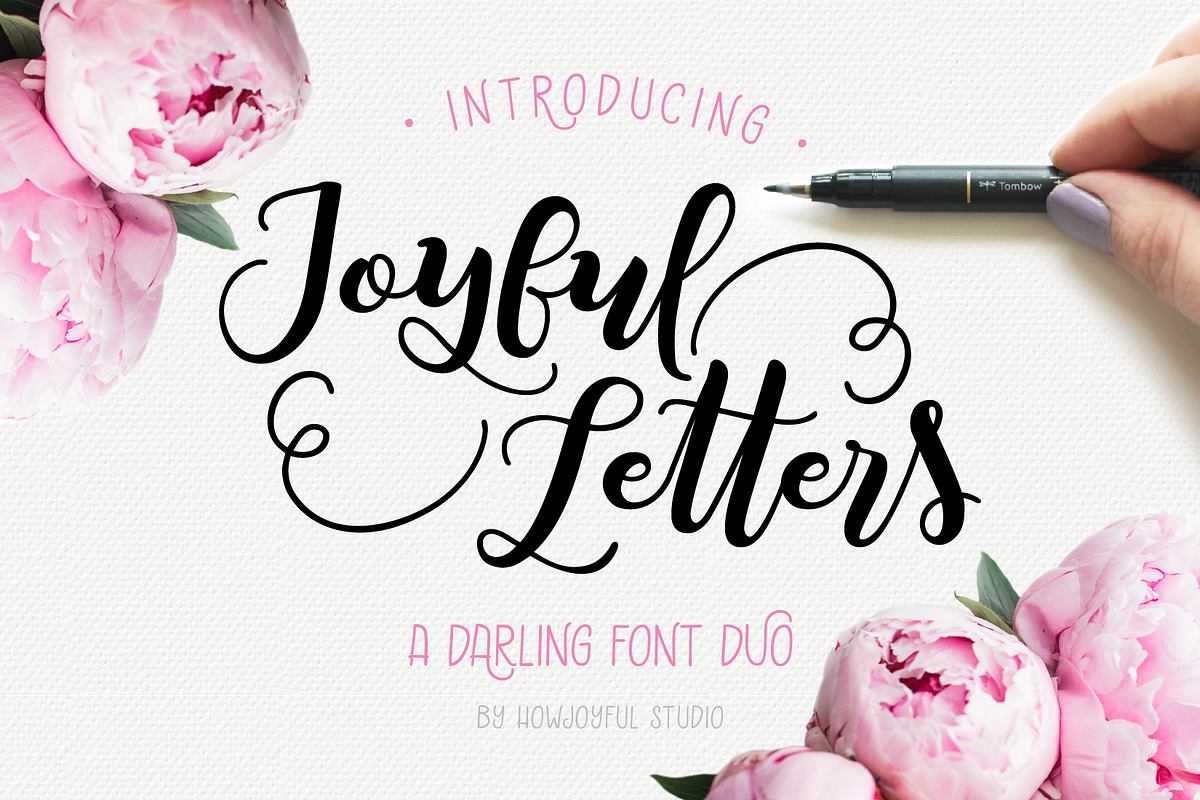
Joyful Letters Font Duo Free Download is a lively and charming font pairing designed to bring a sense of happiness and playfulness to your creative projects. Combining a delightful script with a clean, modern sans-serif, this duo is perfect for greeting cards, branding, invitations, social media posts, and seasonal designs.
The script font adds a personal, handwritten feel with its smooth curves and joyful character, while the sans-serif provides a clear, contemporary contrast. Together, they make for an engaging, versatile combination suitable for any fun or professional project.